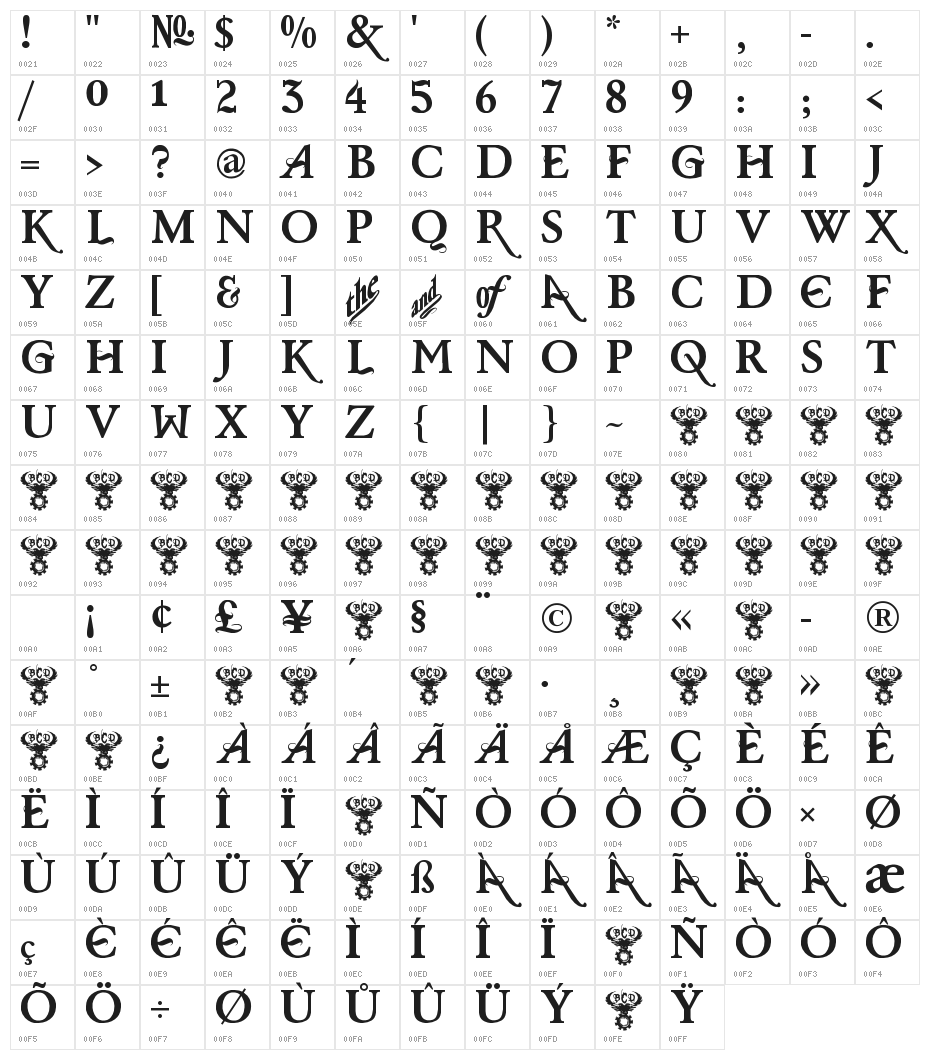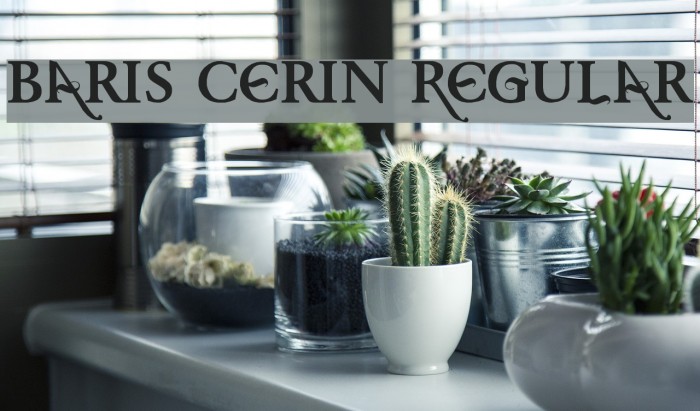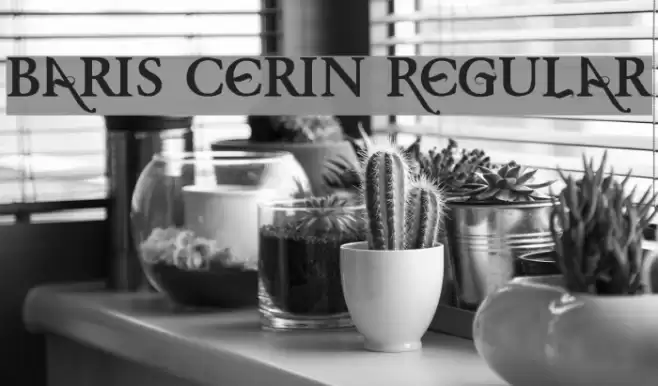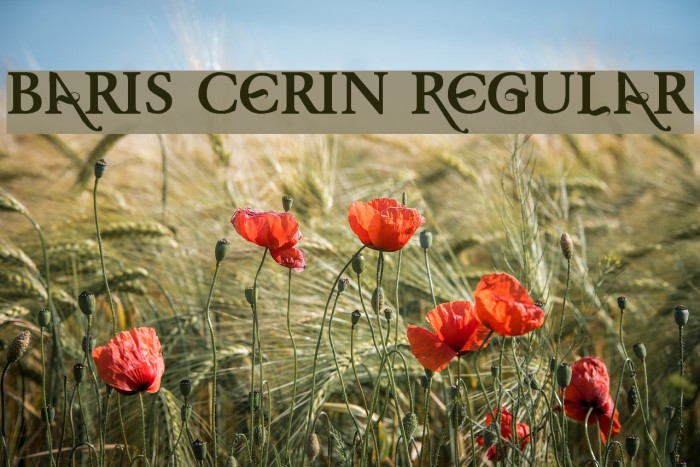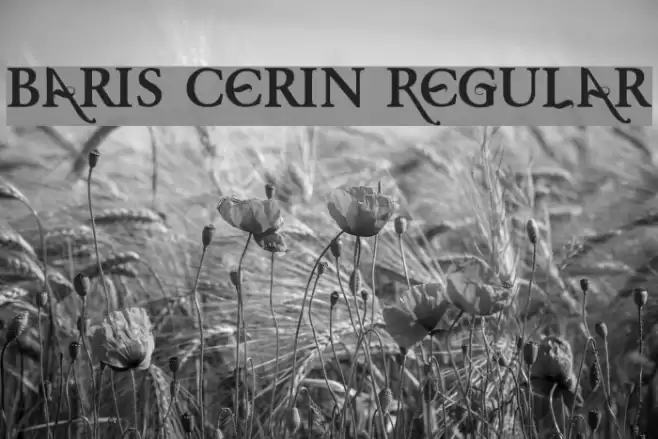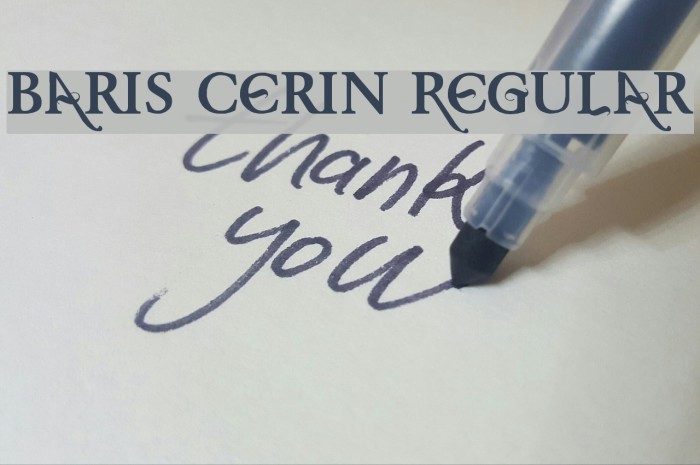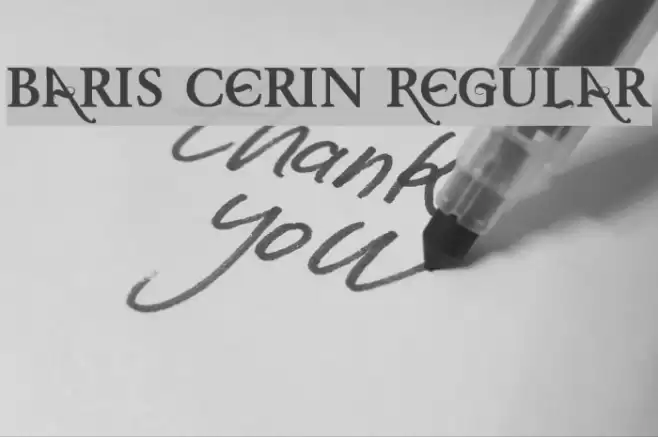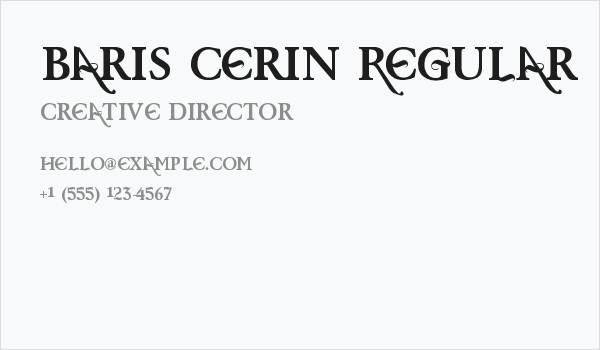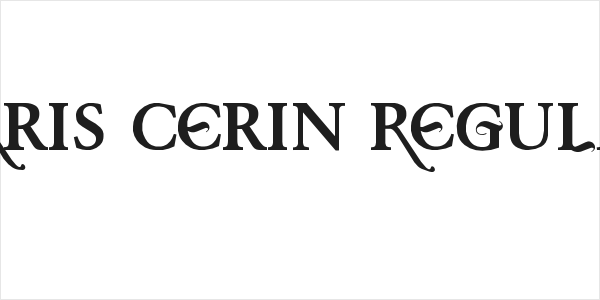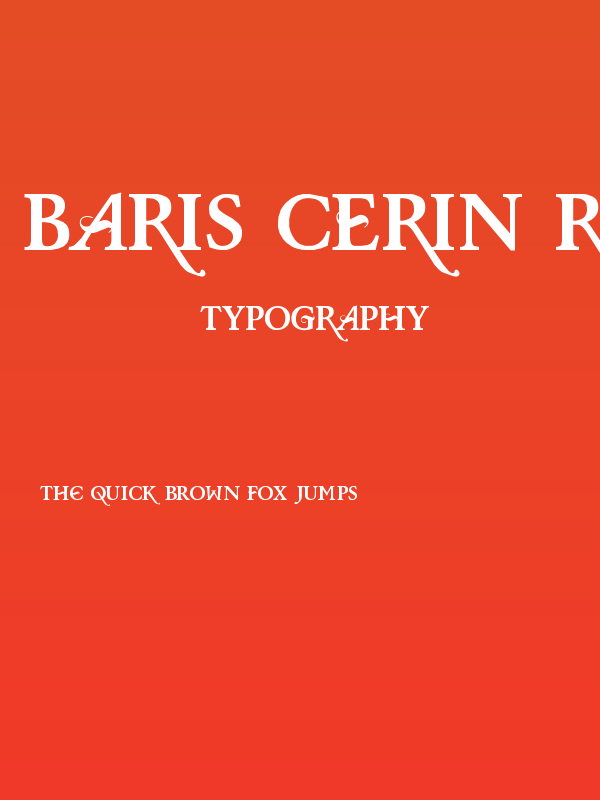
Baris Cerin Regular Font
Baris Cerin Regular Description
This font features a decorative and elegant style with a classic touch. The uppercase letters are adorned with unique serifs and flourishes, giving them a sophisticated and artistic appearance. The lowercase letters maintain a consistent style, complementing the uppercase with their own subtle curves and details. The numerals are bold and distinct, ensuring readability while maintaining the overall aesthetic. Special characters are creatively designed, adding to the font's versatility. The combination of these elements makes it suitable for projects that require a touch of elegance and creativity.
Overall StyleClassic
Use CaseLogos, Headlines, Decorative text
Proposed ProjectsIdeal for wedding invitations, luxury branding, book covers, and artistic posters.